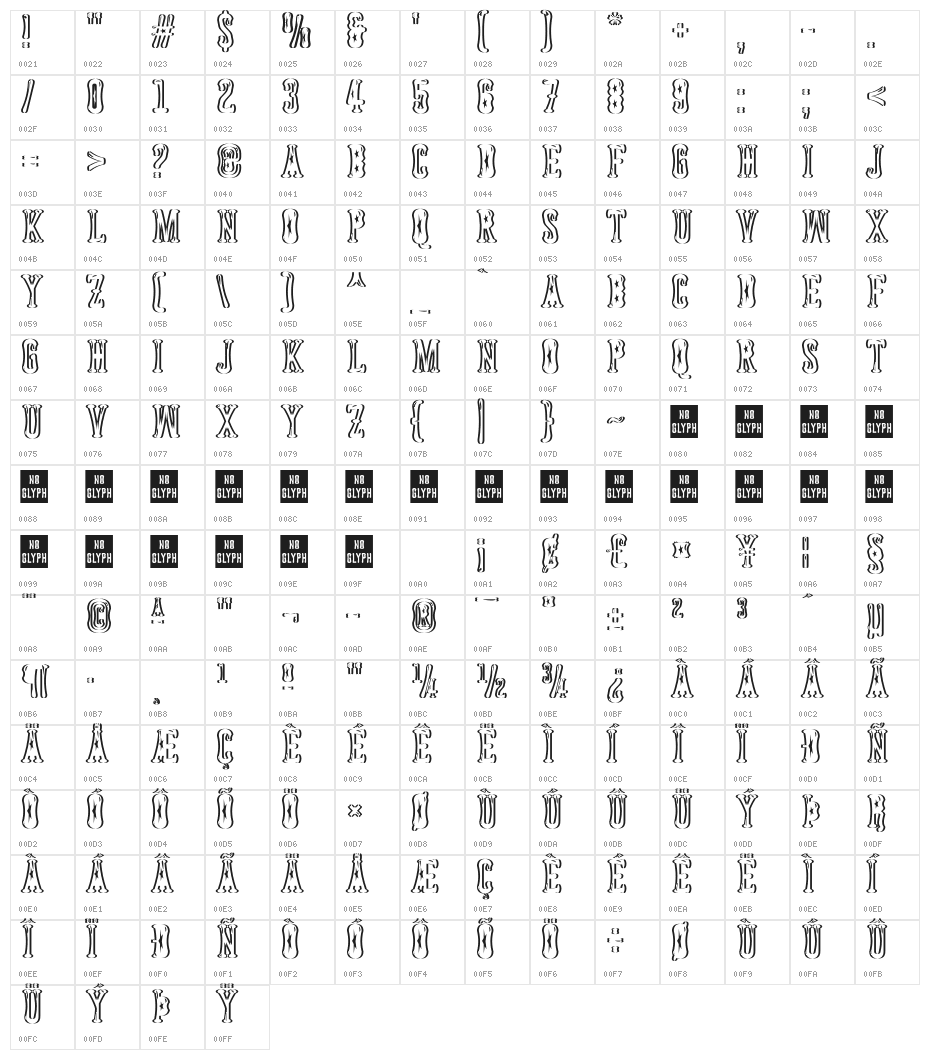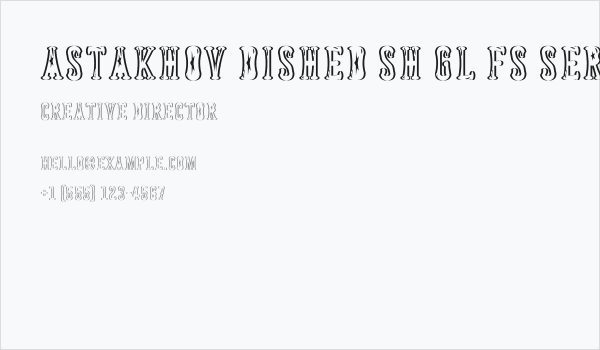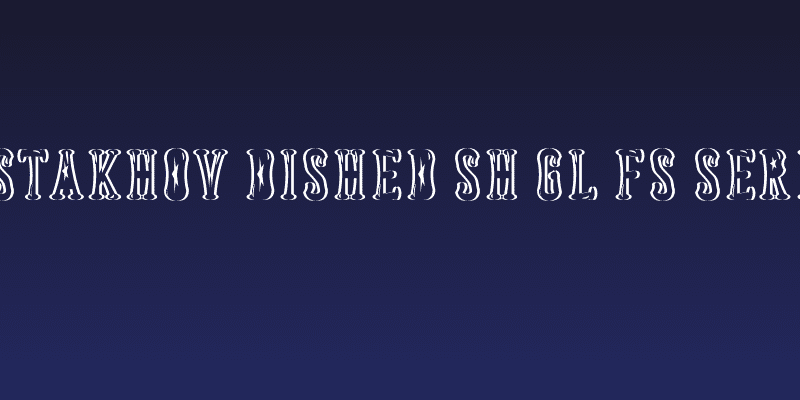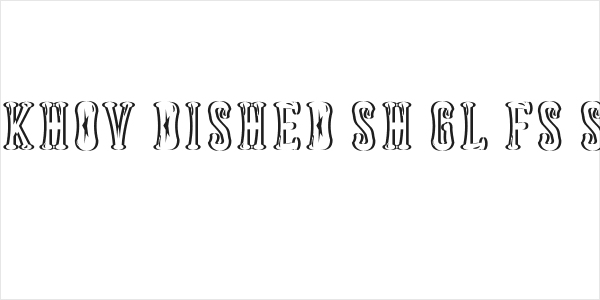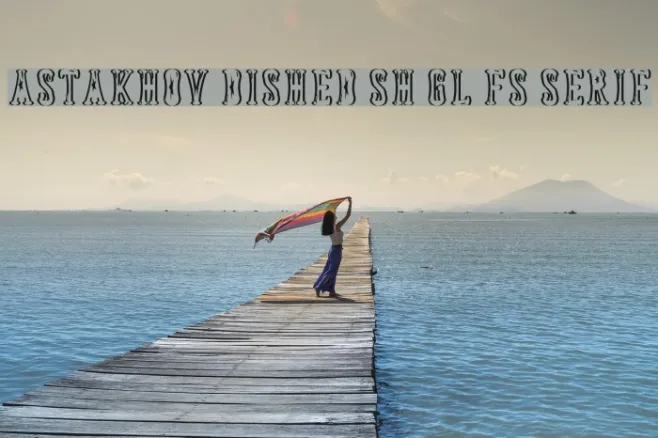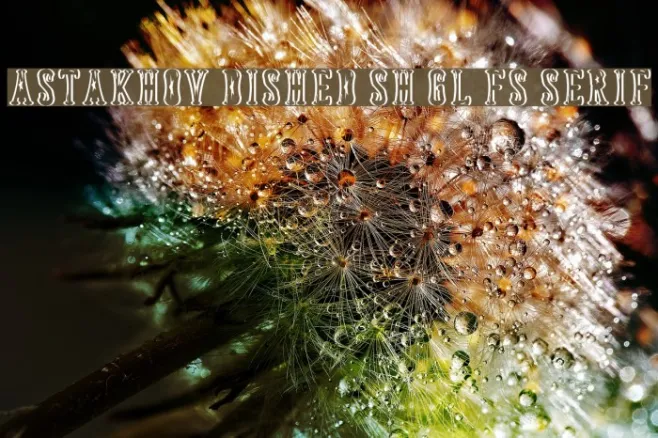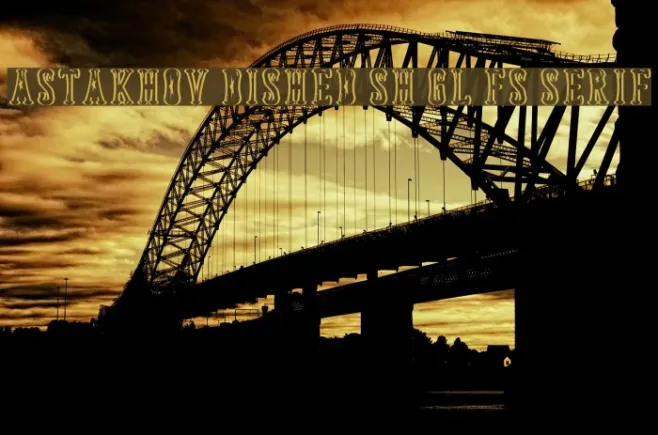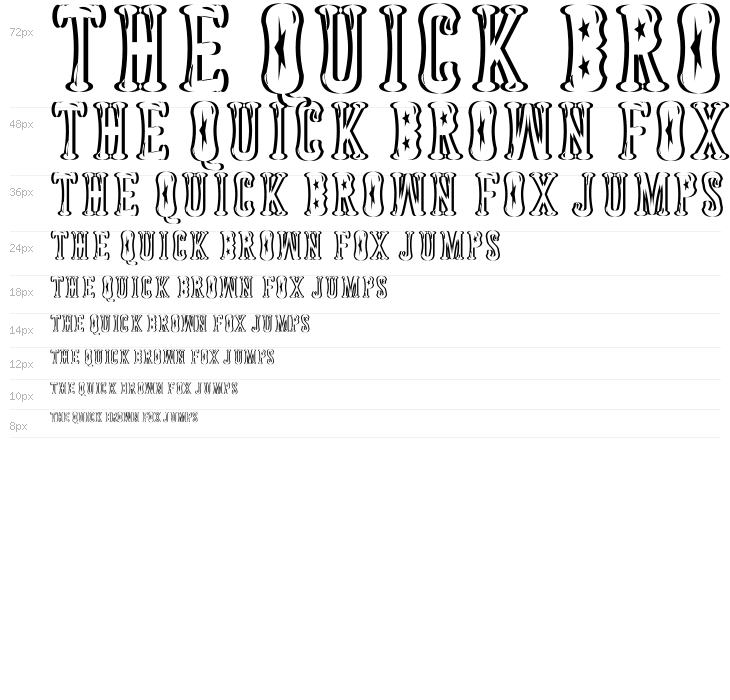
Astakhov Dished Sh Gl FS Serif Font
Astakhov Dished Sh Gl FS Serif Description
This font features a bold and decorative style with a unique star motif embedded within each character. The letters are outlined with a thick, black stroke, giving them a striking appearance. The serif design is pronounced, adding a touch of elegance and sophistication. The overall look is reminiscent of vintage circus or carnival posters, making it ideal for eye-catching displays. The numbers and special characters maintain the same decorative theme, ensuring consistency across all glyphs. This font is perfect for projects that require a bold statement or a retro aesthetic.
| Proposed Projects | Ideal for posters, logos, event invitations, and any design needing a vintage or circus theme. |